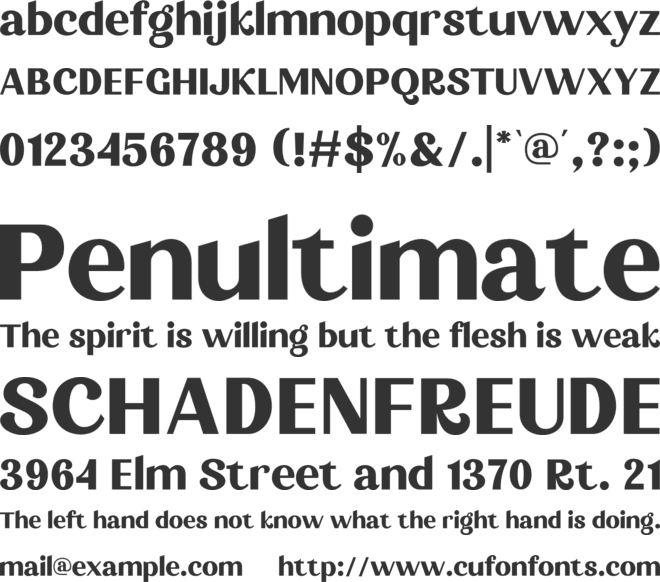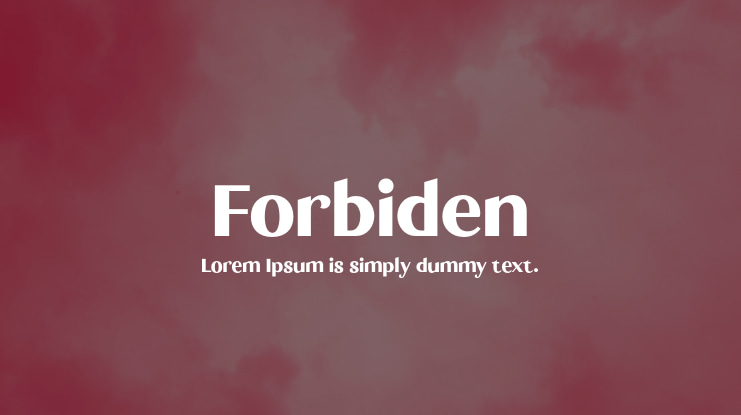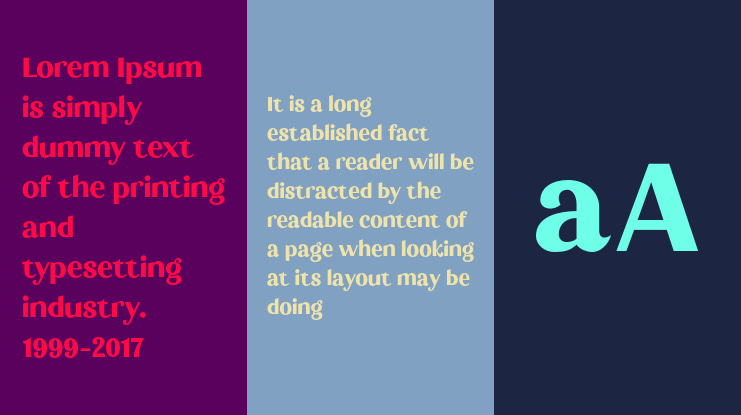
Forbiden Font
Forbiden is a classic looking sans serif display font. There are several alternatives available to beautify the letters. Display fonts elegantly and classically.
Forbiden font preview